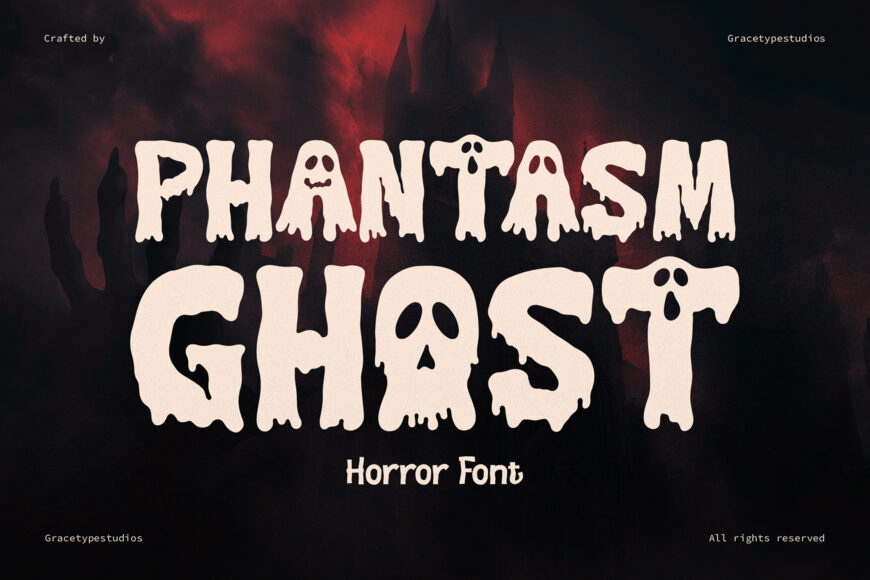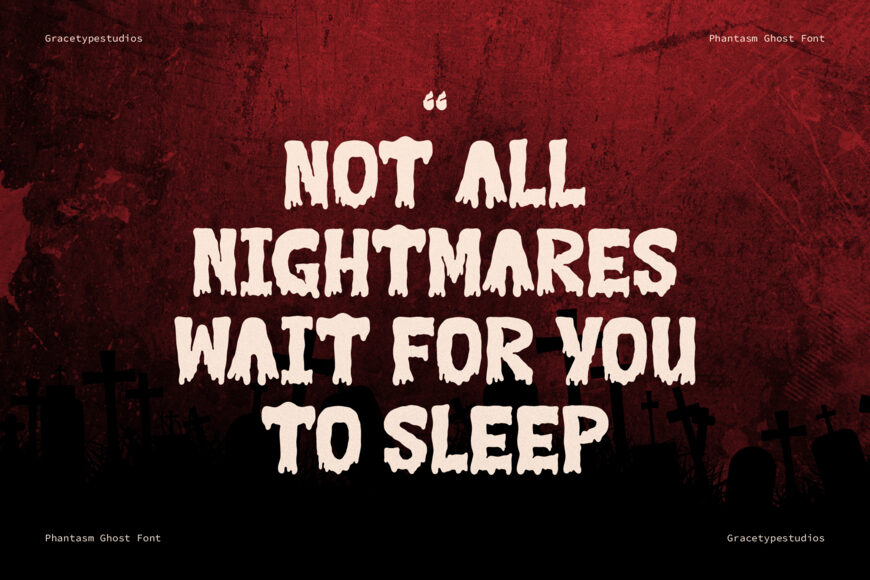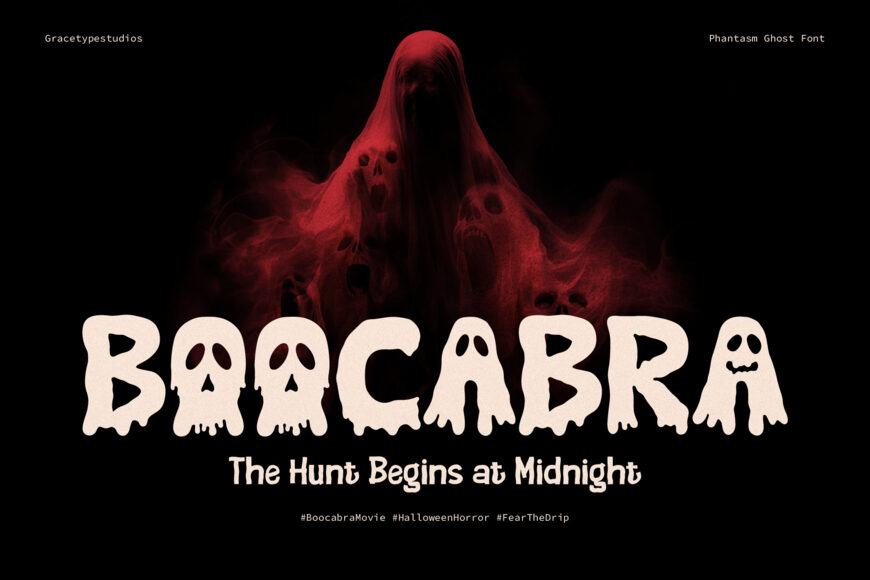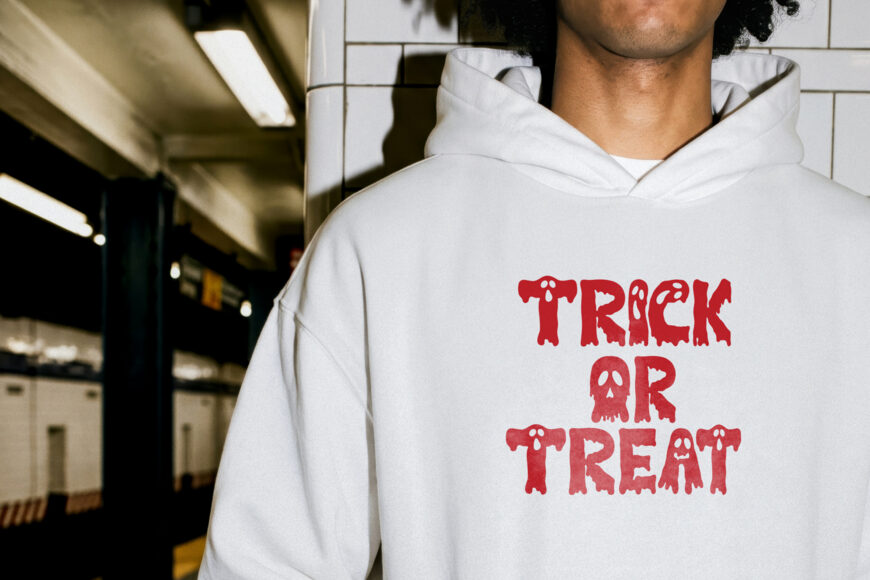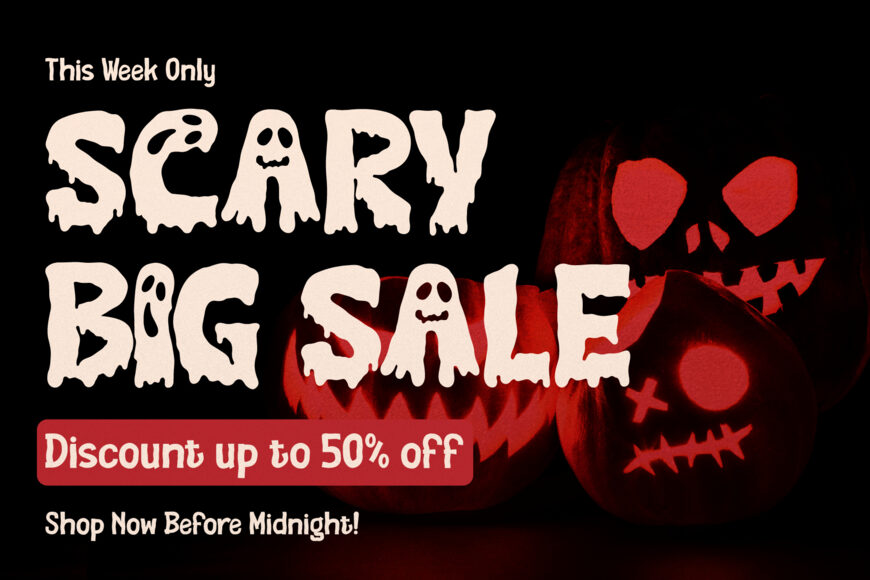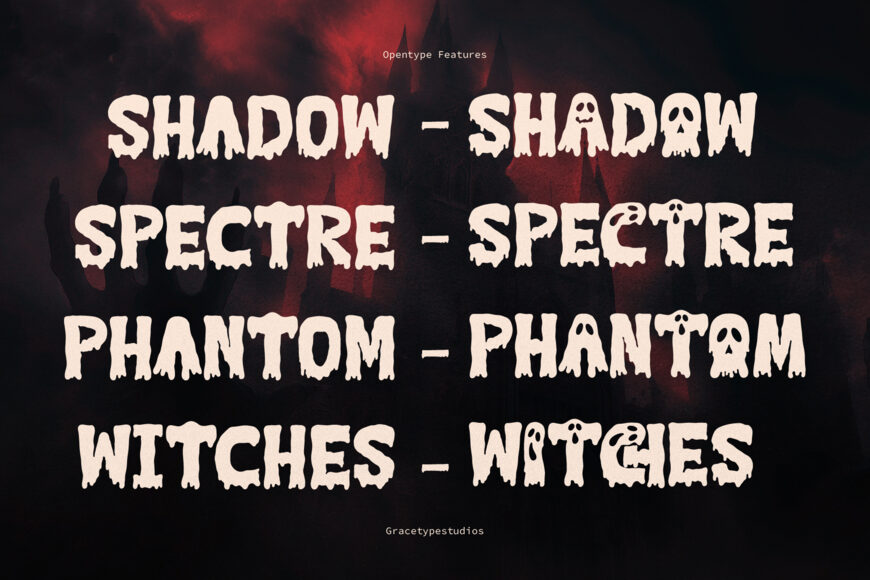
Summon spooky charm, haunting fun, and ghostly Halloween energy to your creative canvas with Phantasm Ghost!
Ideal for Halloween party invitations, spooky movie night flyers, trick-or-treat bag graphics, horror apparel designs, sticker packs, party decor banners, and custom Cricut or Silhouette craft SVG projects!